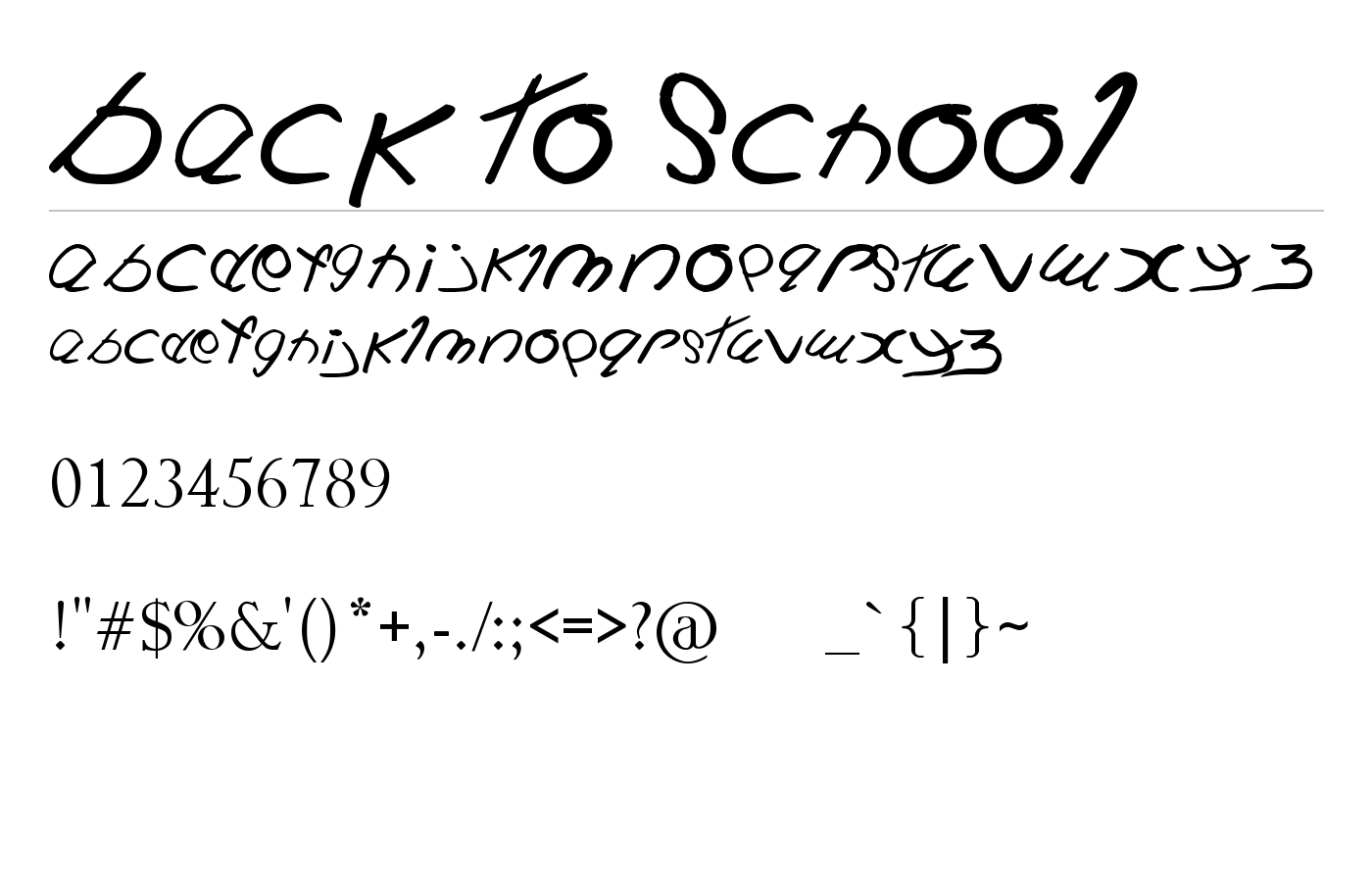
Back To School Font is a playful and informal handwritten typeface that captures the spontaneous, imperfect charm of casual penmanship. With its irregular strokes, varying letter shapes, and a natural flow, it feels lively and personal, making it ideal for creative projects, children's materials, or any design seeking a friendly, approachable vibe. Its light weight and loose spacing add to its airy, handmade character, perfect for adding warmth and personality to invitations, posters, or educational content.
Back To School Font
About Back To School Font